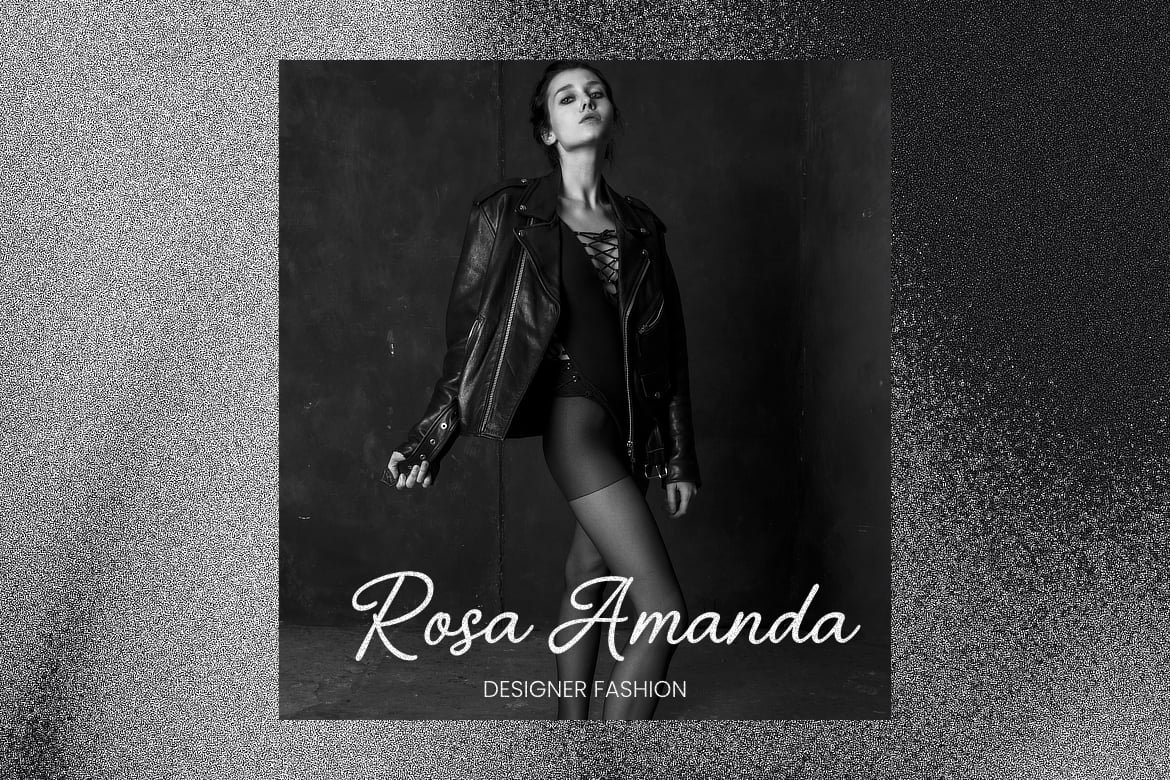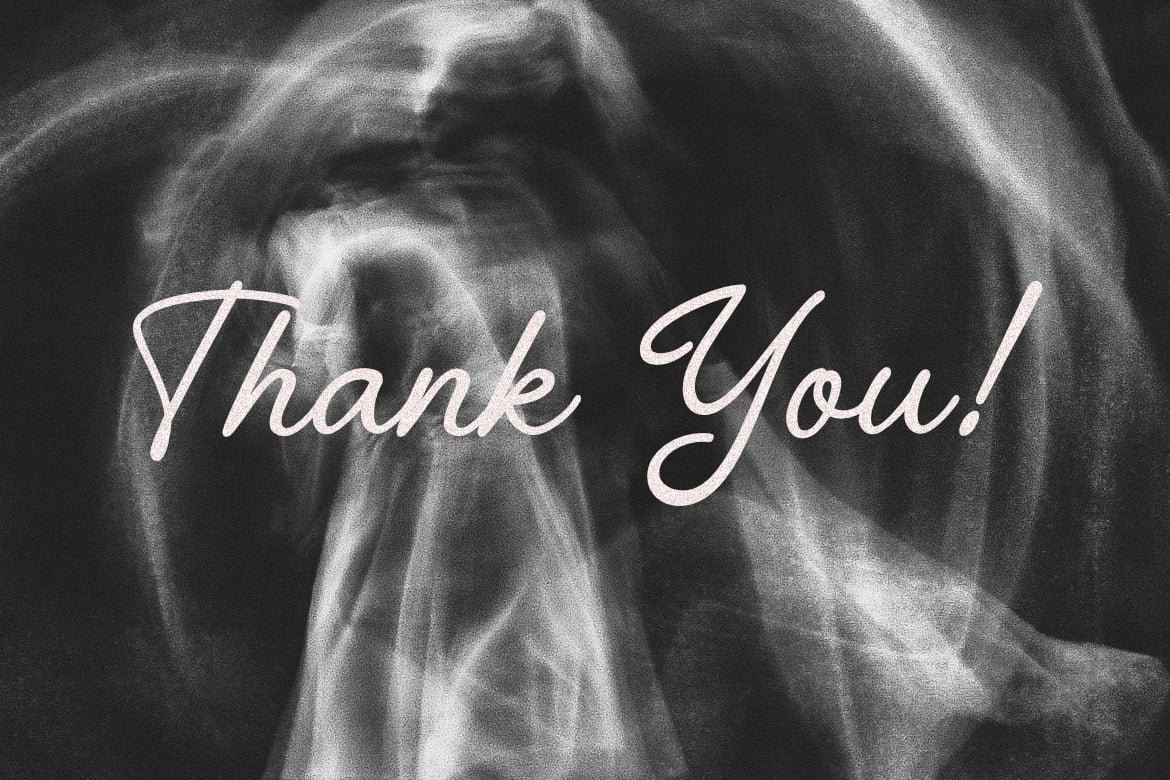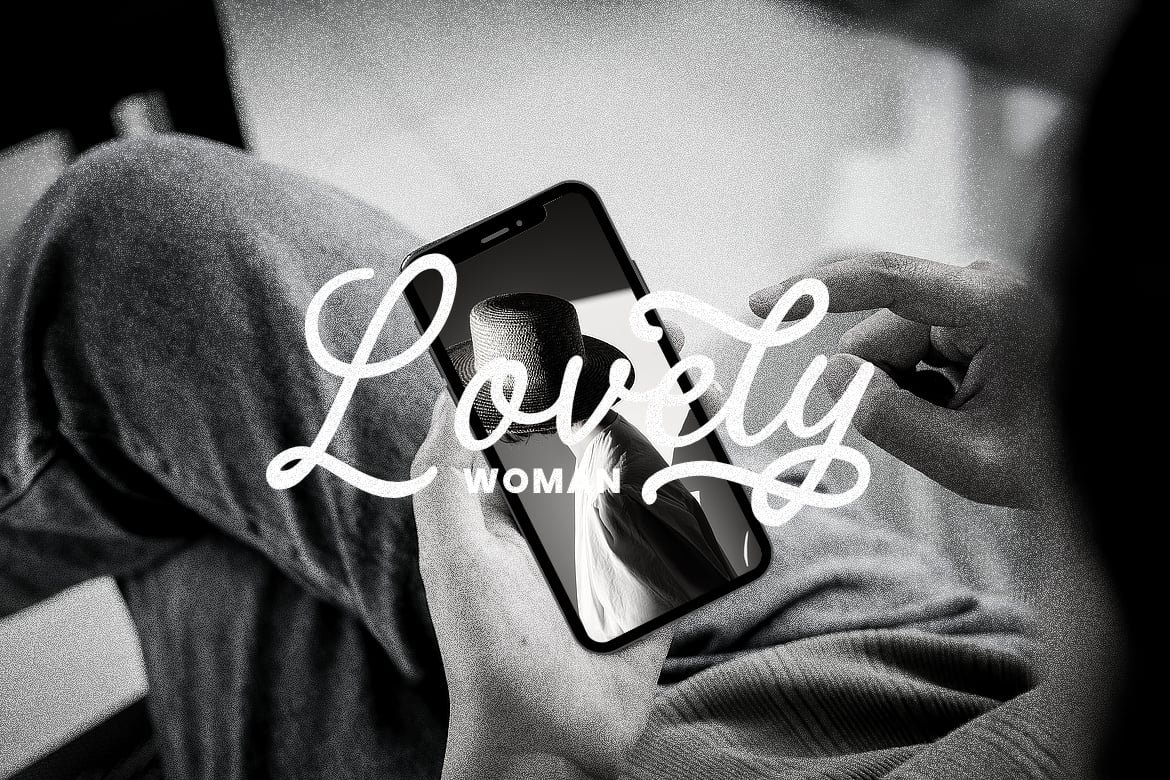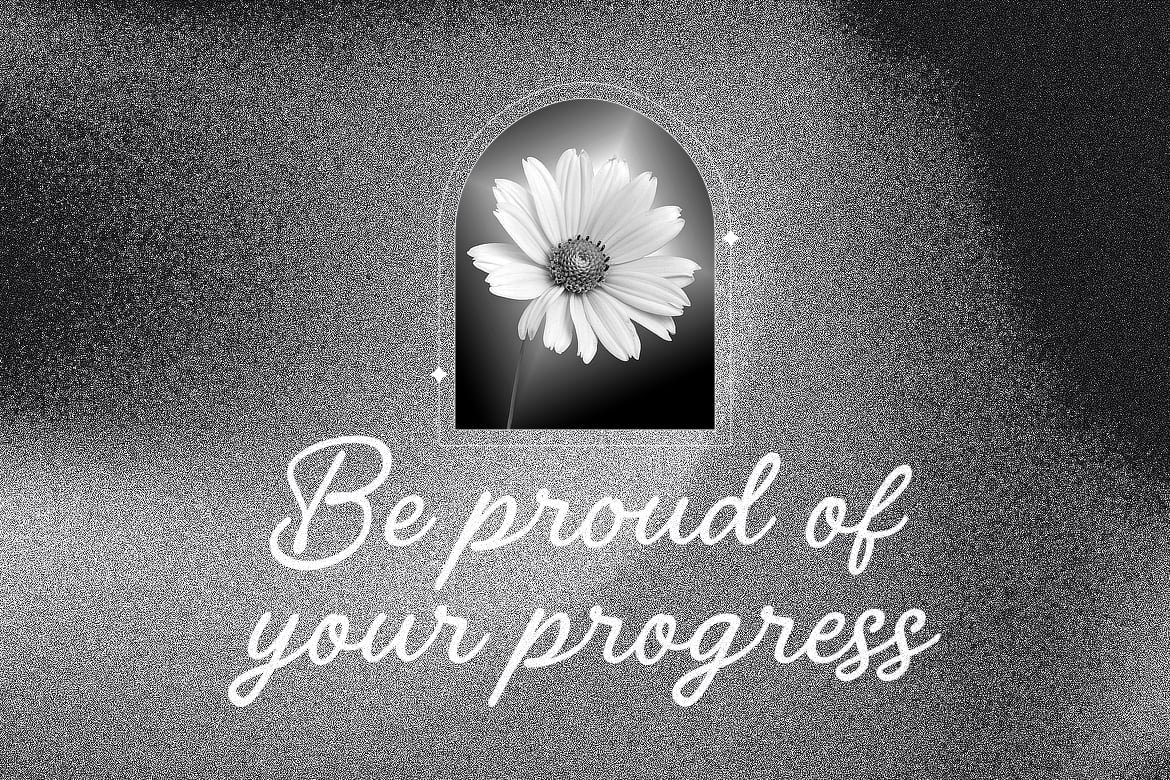
Malarkey Font
Malarkey is a script typeface with a timeless style that is perfect for branding and logo projects. This font has a variety of alternative characters to help personalize each word.
- Uppercase and Lowercase
- Punctuation & Number
- Multilingual Support ÀÁÂÃÄÅÆÇÐĐÈÉÊËÌÍÎÏŁÑÒÓÔÕÖØŒŠÙÚÛÜŸÝŽàáâãäåæçđèéêëìíîïłñòóôõöøœšùúûüýÿž